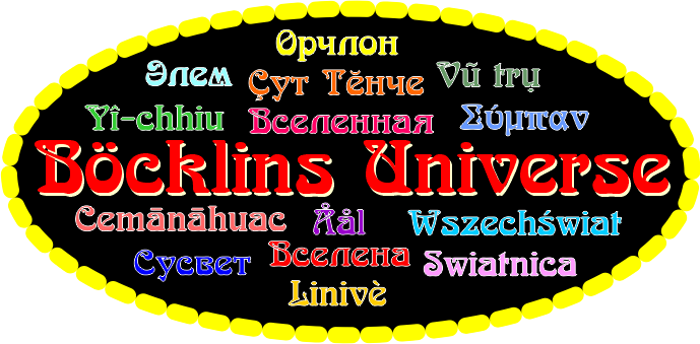
Boecklins Universe Font
Arnold Böcklin is a font that was designed by the foundry Otto Weisert in Stuttgart 1904th The font is named after the symbolist Swiss painter Arnold Böcklin, who died 1,901th
The Arnold Böcklin is the most famous Art Nouveau font, it is characterized by floral forms of Art Nouveau. The publication has been produced for use in larger font sizes. Here the decorative appearance was more important than readability.
That makes this work until today very popular when a wall marking a decorative font is desired, it is an advertising Address outside. At a shop or a restaurant, as well as purely decorative lettering in the house
The magazine had a great significance for the book design of Art Nouveau. Experienced a renaissance the font in the 1960s and 1970s, when Art Nouveau design became fashionable again. They also influenced the illustrations by British artist Roger Dean, as well as more recently the work of Stuckists Paul Harvey (* 1960). As a variant of Arnold Böcklin is included in the software package CorelDRAW Graphics Suite under the name "Arabia" was and is the font used in many cases in connection with the Orient and the Middle East, although it has actually nothing in common with the calligraphy of Arabic writings.
Owner of the trademark "Arnold Böcklin" for this font is Linotype font manufacturers, but many font manufacturers have their own versions under different names in the program. Adobe's OpenType version of the font support Adobe ISO-2, Adobe CE and Latin Extended character sets.
but I told myself that you can still beat, and in my Böcklin Universe really ALL Latin enhancements, including phonetics, Africa Alfabet, Vietnamese and UNZ1 ligatures, as well as probably the first time a truly complete Cyrillic character set, including all extensions created. Even a complete Greek character set, and all extensions is included!